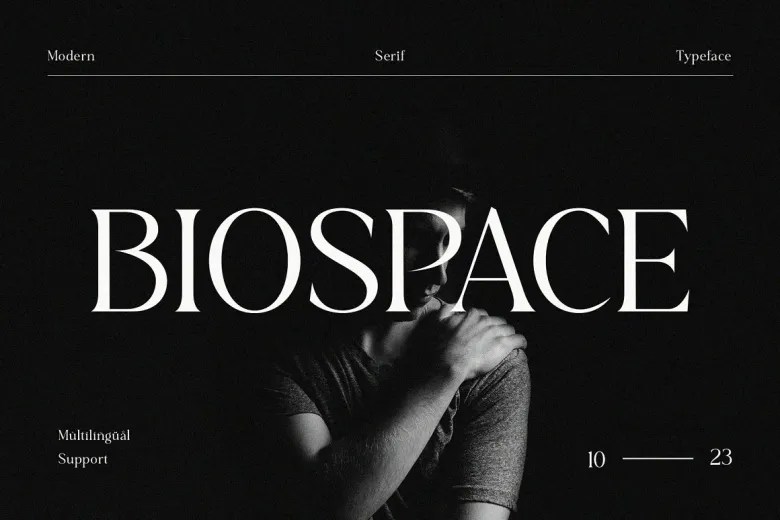
Biospace Font
Biospace is an elegant serif typeface that seamlessly combines contemporary sophistication with functional versatility. Designed to make a striking impression, Biospace stands out within any font family, offering a refined and modern aesthetic that is both eye-catching and versatile.
Features of Biospace:
• Elegant Serif Design: Biospace features a distinctive serif style that enhances the visual appeal of each character. Its elegant serifs and clean lines create a harmonious balance, ensuring that the font is both stylish and legible.
• Multilingual Support: This typeface supports both uppercase and lowercase characters, making it ideal for a wide range of multilingual applications. Whether you’re designing for international audiences or creating diverse content, Biospace provides comprehensive typographic solutions.
• Contemporary and Clean: With its neat lettering and modern design, Biospace brings a fresh and polished look to any project. The clean lines and refined details make it suitable for professional and high-end applications, from branding and editorial work to digital and print media.
• Versatile Use Cases: Biospace excels in various design contexts, including logos, headlines, packaging, and more. Its sophisticated appearance adds a touch of class to any project, whether it’s for a corporate identity, a creative campaign, or a personal design endeavor.
• User-Friendly: Biospace is designed to be easy to use, providing a straightforward and enjoyable experience for designers. Its well-balanced characters and elegant design ensure that it integrates smoothly into your projects, enhancing the overall quality and impact of your work.